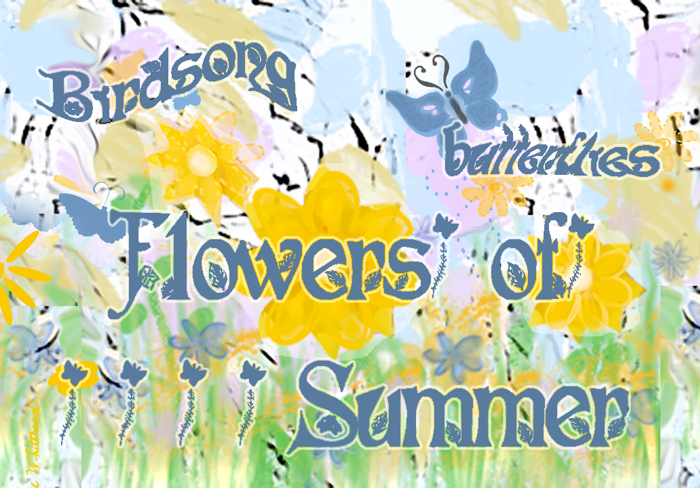
Flowers of Summer Font
SC Small Caps Style
Flowers of Summer font has a floral motif with a flower or plant silhouette on each capital and a leaf on each lowercase letter.